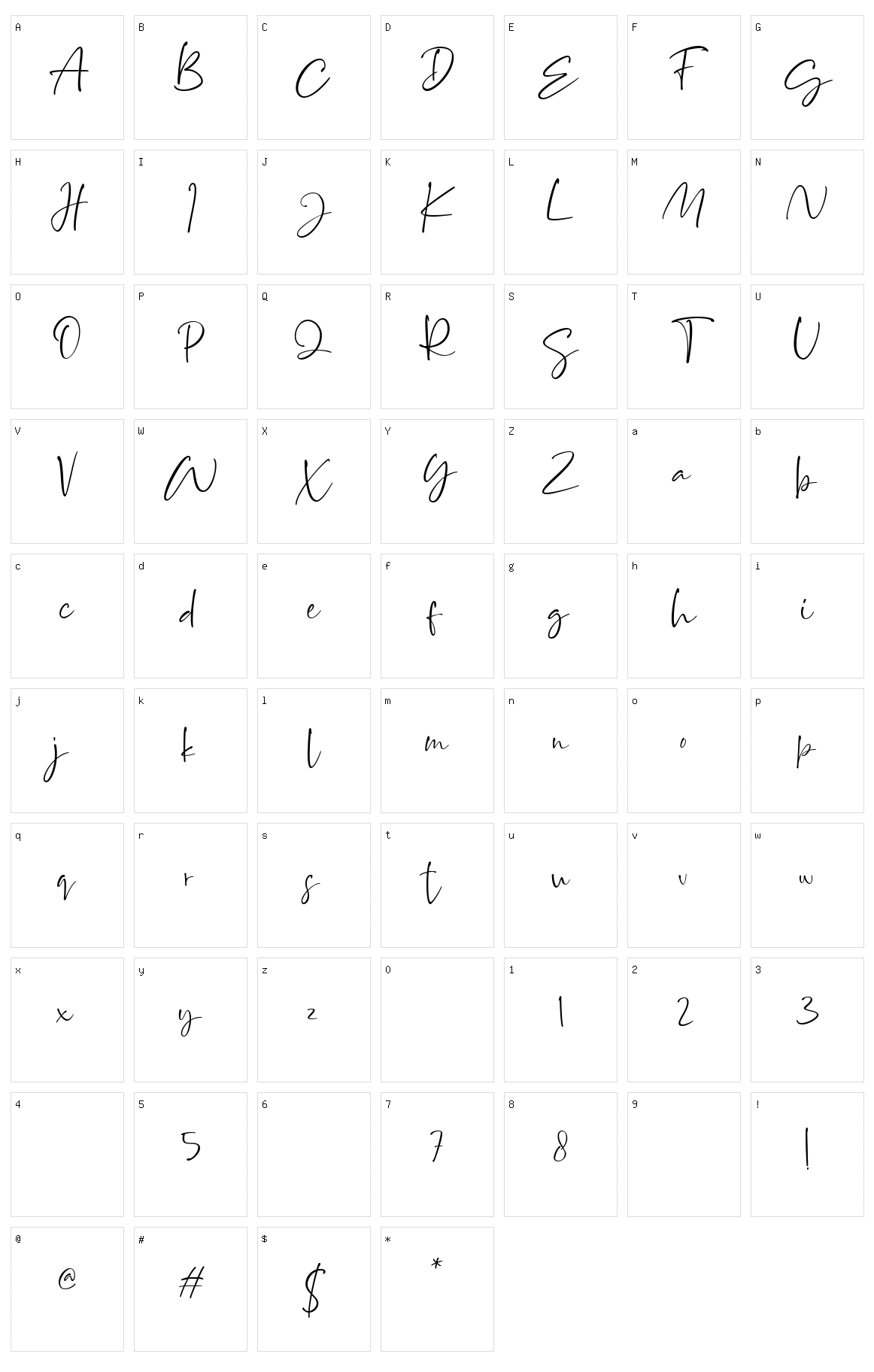
The free font Brittanya Goldenite is carefully designed by Creatype Studio, showcasing a thoughtful balance of creativity and usability and falls under the Script font style. When you download the ZIP file, it contains only 16.66 KB of font files, making it lightweight and quick to download. Please review the license details below to understand permitted usage and distribution rights. If license information is not available, we recommend using this font for personal projects only or contacting the author directly for commercial usage permissions.